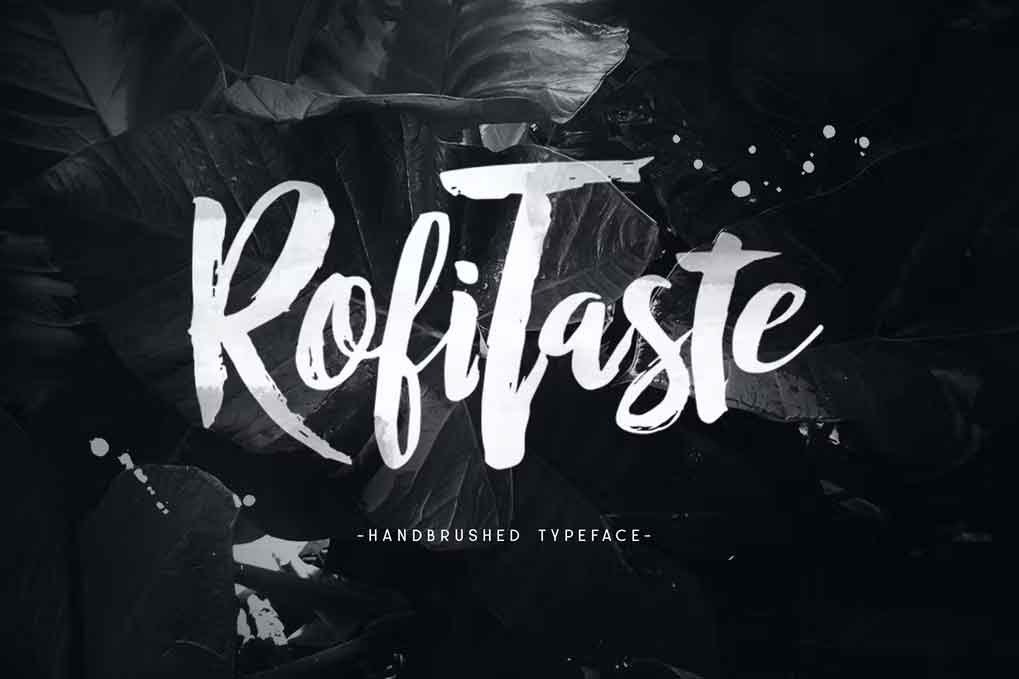
RofiTaste Typeface Font
Introducing RofiTaste Hand brushed typeface , font is designed with a unique use of dry brush that creates the character of grunge brush. RofiTaste typeface excellent used for the manufacture quote text, logotype, header magazine, t-shirt design and concept handmade designs.
RofiTaste Typeface Font is a Script And Handwritten font that brings a professional and versatile look to your projects. Introducing  RofiTaste Hand brushed typeface  , font is designed with a unique use of dry brush that creates the character of grunge brush.